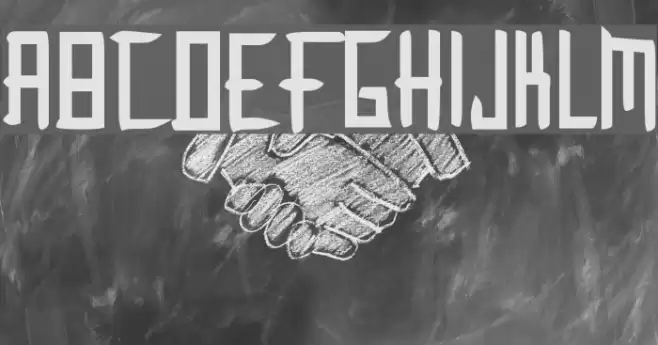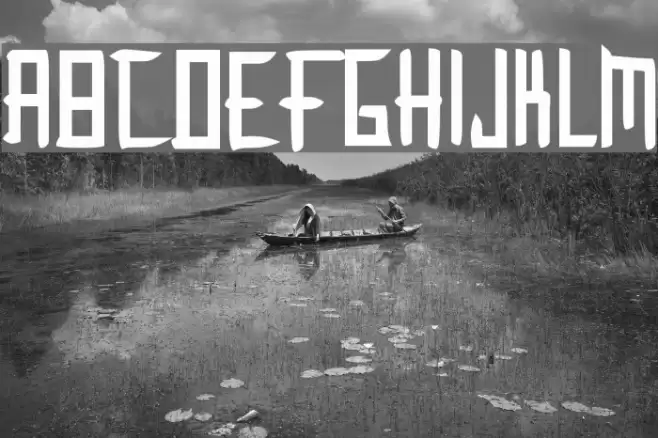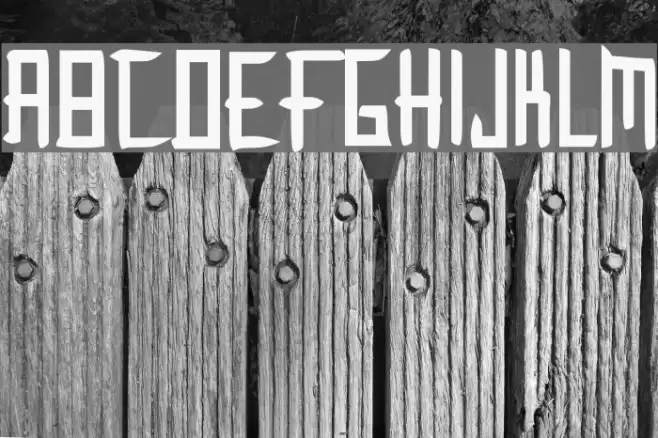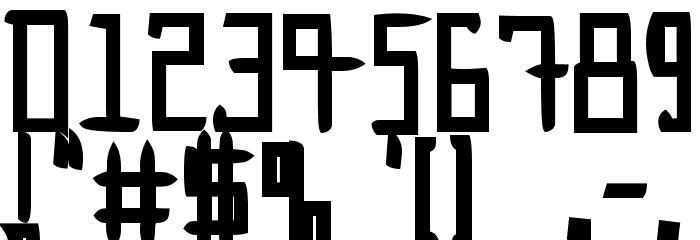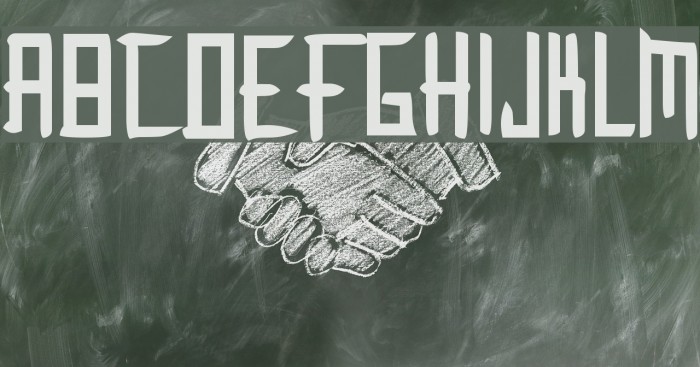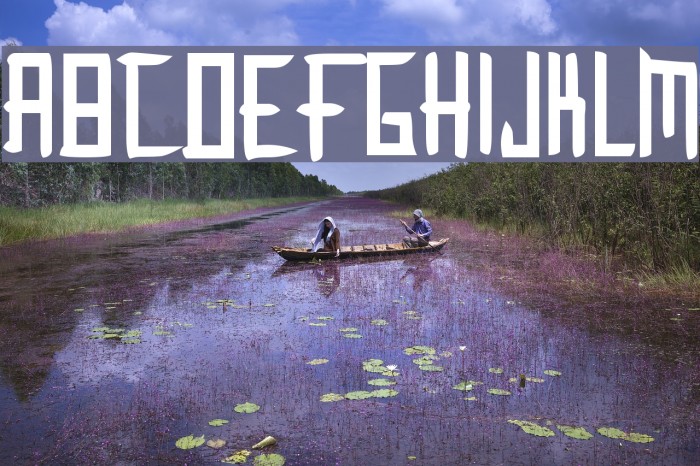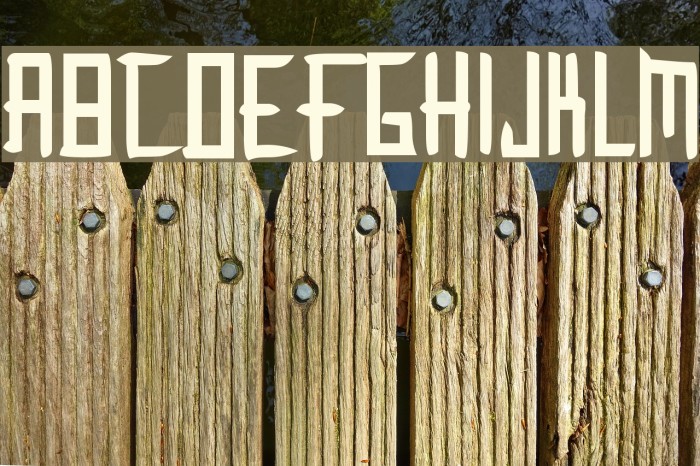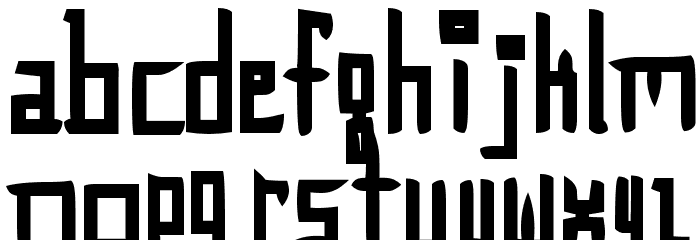
Innie Outtie Font
Innie Outtie Description
This font features a unique and playful design with a bold, geometric style. The characters have a distinct blocky appearance, with some letters incorporating unexpected curves and angles that add a quirky touch. The uppercase and lowercase letters maintain a consistent height, creating a uniform look across the alphabet. Numbers and special characters follow the same bold and structured design, ensuring coherence throughout. The font's overall appearance is modern and eye-catching, making it suitable for creative and unconventional projects.
A bold, geometric font with a playful and modern style from Quirky fonts.